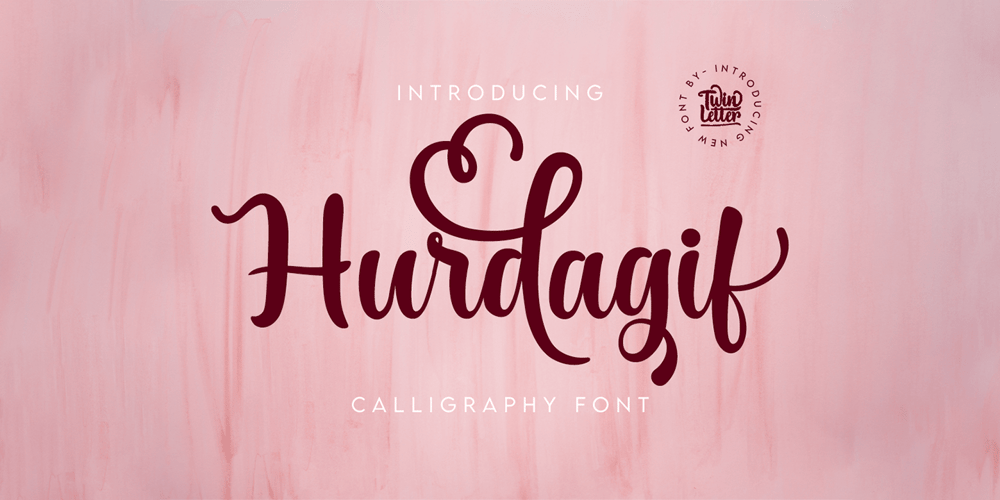
Hurdagif Font Family was designed by Rozikan and published by Twinletter. Hurdagif contains 1 styles and family package options. Hurdagif is a feminine typeface that is lovely, graceful, and appealing. includes a range of letterforms integrated into OpenType alternatives, making your job more efficient.Let’s use this typeface to make your project seem great.This font is designed with a natural touch of handwriting which is refined to create a portion and composition that suits your needs. So this font is suitable for craft, children’s writing, adventure posters, food banner titles, wedding invitations, product packaging logos, quotes, social media page covers, furniture banner headlines, book covers, and much more.